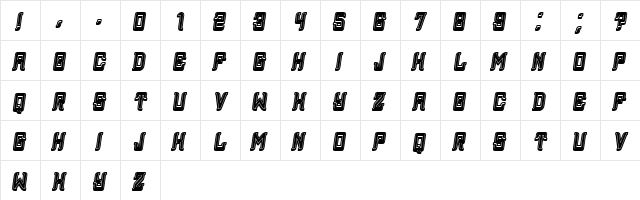
Assyrian 3D Filled Italic
Design Context for Assyrian 3D Filled Typeface
Assyrian 3D Filled is a composed and adaptable typeface that performs quietly and consistently across a wide range of design contexts. Its italic angle brings a sense of urgency and motion to the letterforms.
Pro Tip: Use Assyrian 3D Filled for emphasis, pull quotes, and subheadings where its slanted energy can add rhythm to the layout.